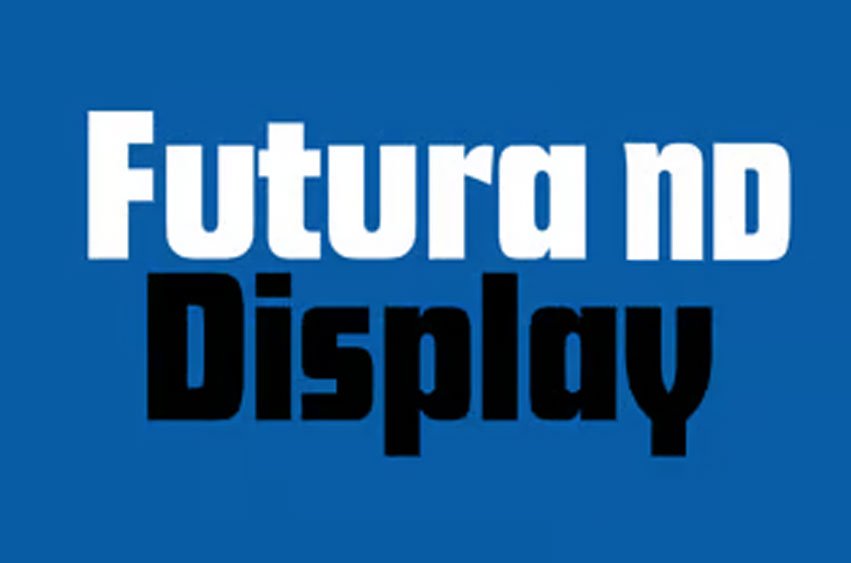
Futura ND Font
Futura ND Font Display was designed by Paul Renner in 1932. Its original German name was Futura Schlagzeile, which means “headline”, alluding to its suitability for display use.
Its forcefulness and robustness have made it a widely used typeface in film posters, advertising, logos, and music covers.